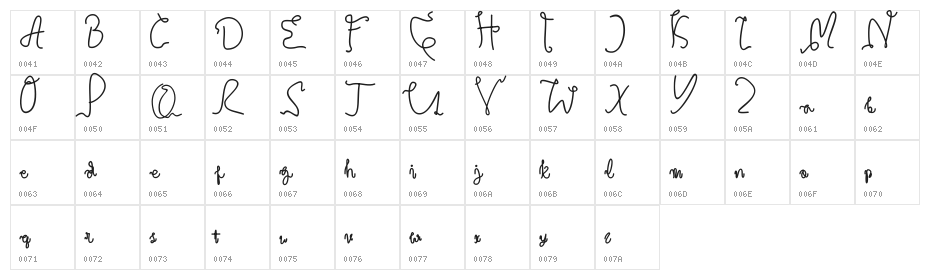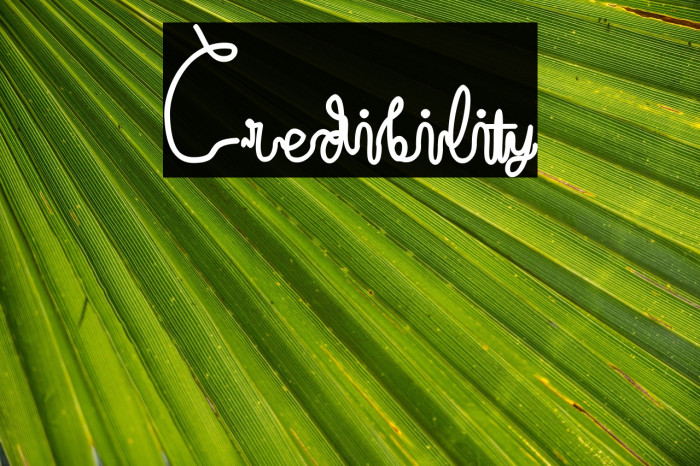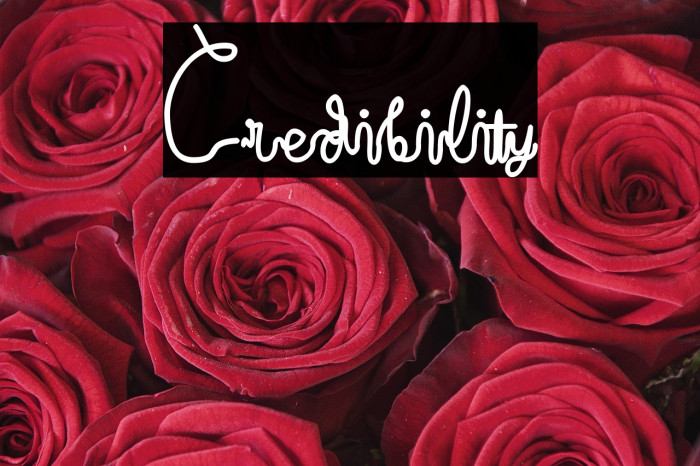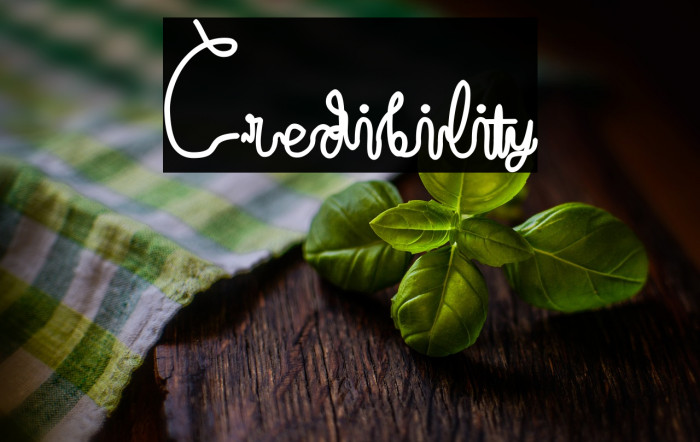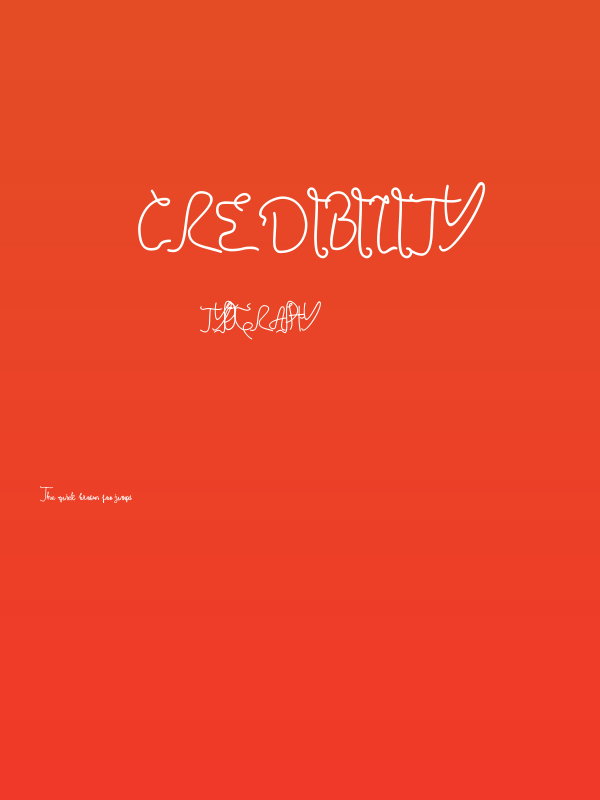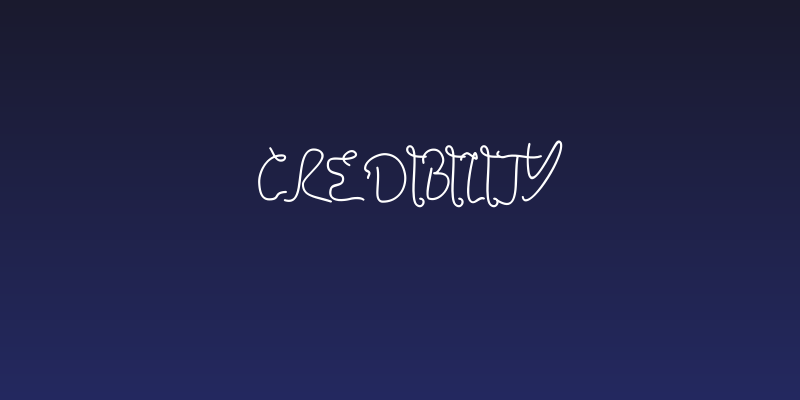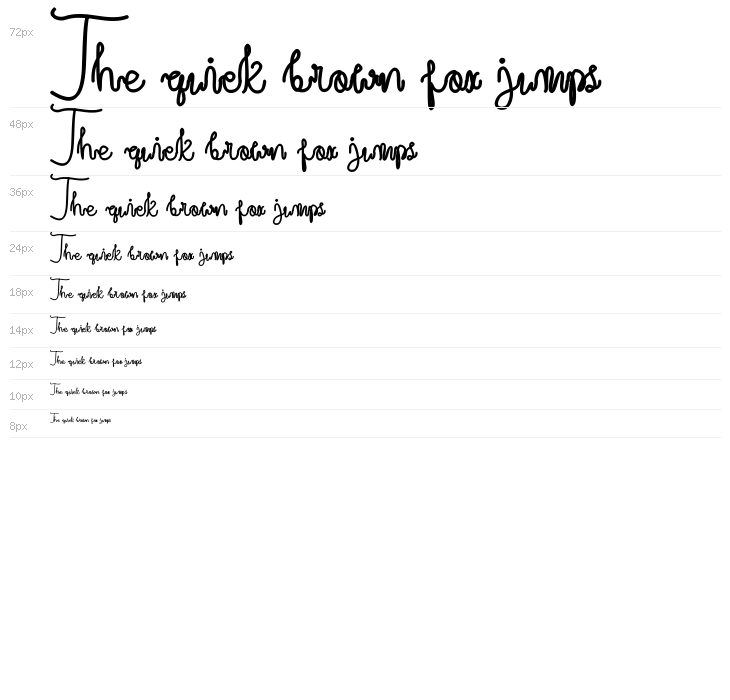
Credibility Font
Credibility Description
This font features an intricate and whimsical design, characterized by its looping and interconnected strokes. The uppercase letters exhibit a playful yet elegant style, with each character flowing into the next, creating a sense of continuity and movement. The lowercase letters maintain this fluidity, offering a harmonious blend of curves and loops. The overall design is reminiscent of a handwritten script, yet it maintains a unique decorative flair. The numbers and special characters are crafted with the same attention to detail, ensuring consistency throughout the typeface. This font's artistic nature makes it suitable for creative and expressive projects.
| Use Case | Logos, Headlines, Artistic projects |
| Proposed Projects | Ideal for wedding invitations, greeting cards, artistic branding, and creative posters. |